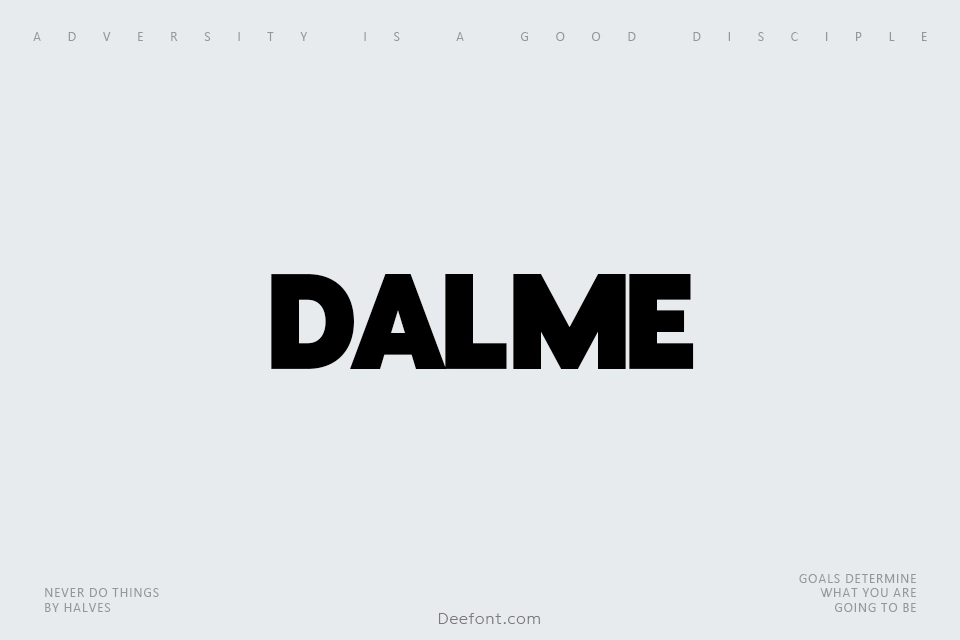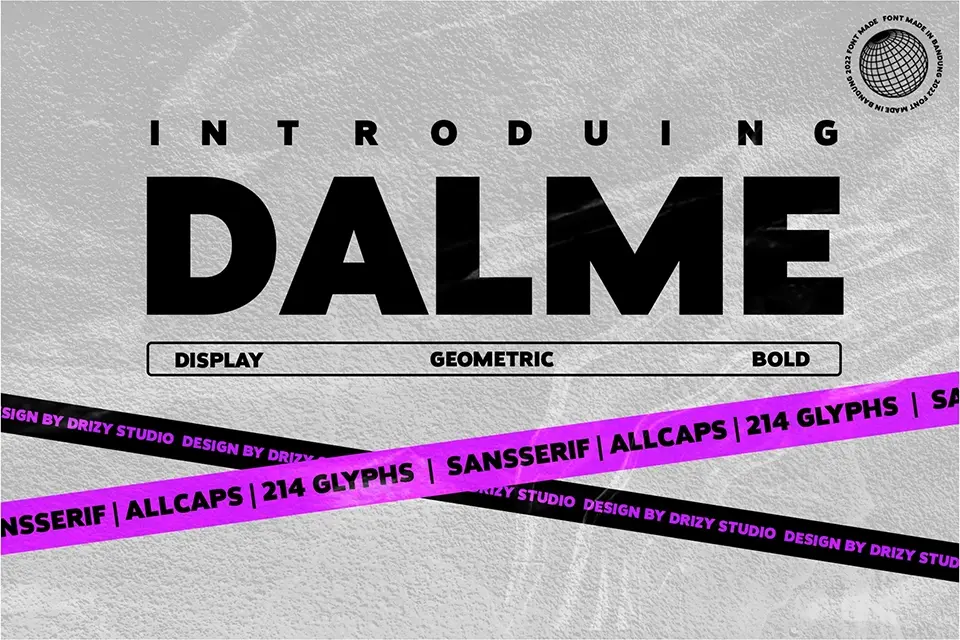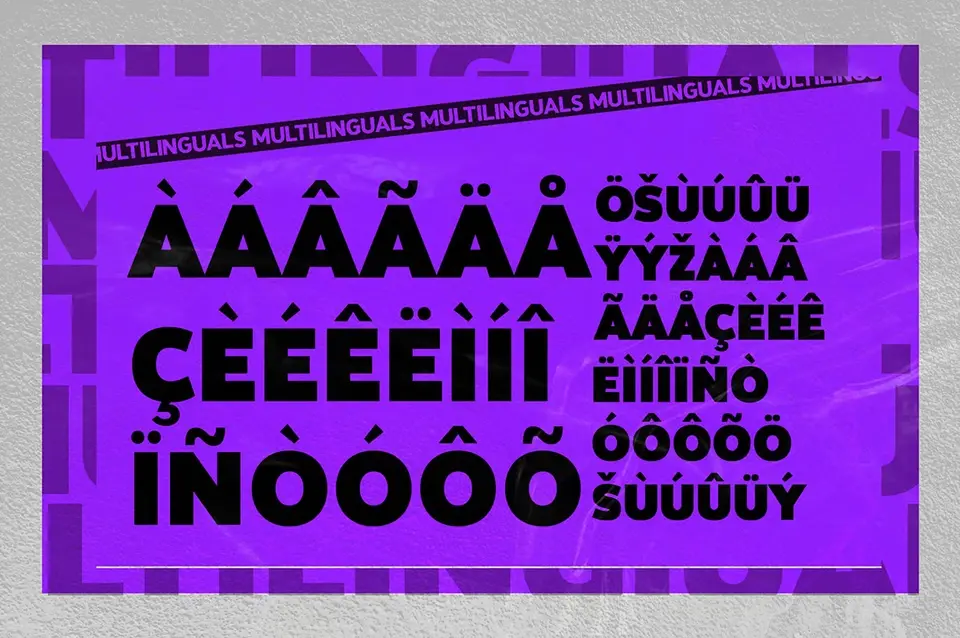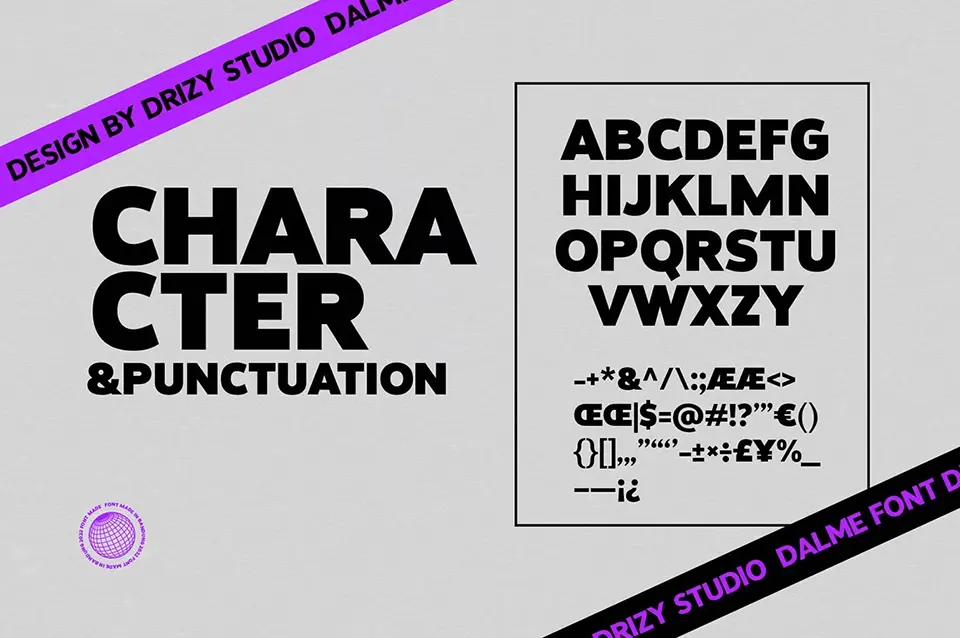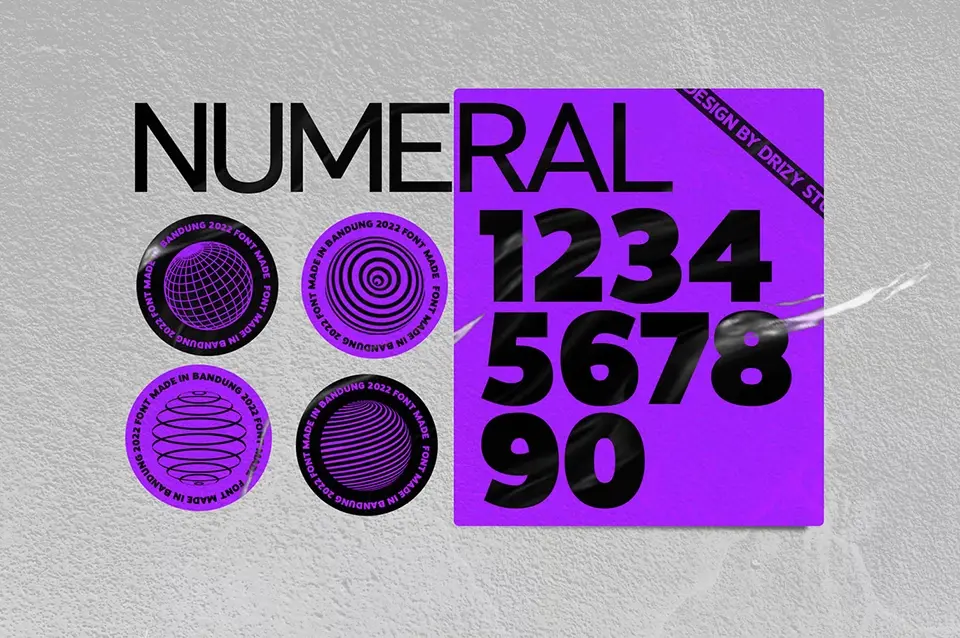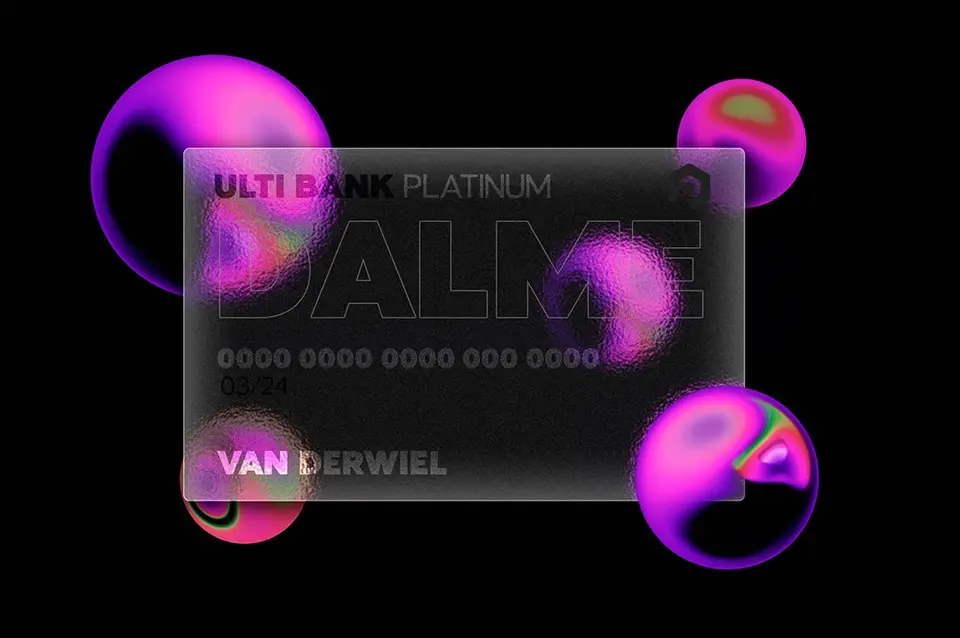
Dalme Font
Dalme Font is a bold geometric display sans serif typeface from Drizy Studio designed for contemporary and striking visual projects. This versatile font features uppercase letters, numerals, punctuation, multilingual support, and ligatures, making it ideal for logos, branding, packaging, and modern design applications. With its clean lines and geometric precision, Dalme Font delivers a professional, minimalist aesthetic that commands attention while maintaining excellent readability for display purposes.